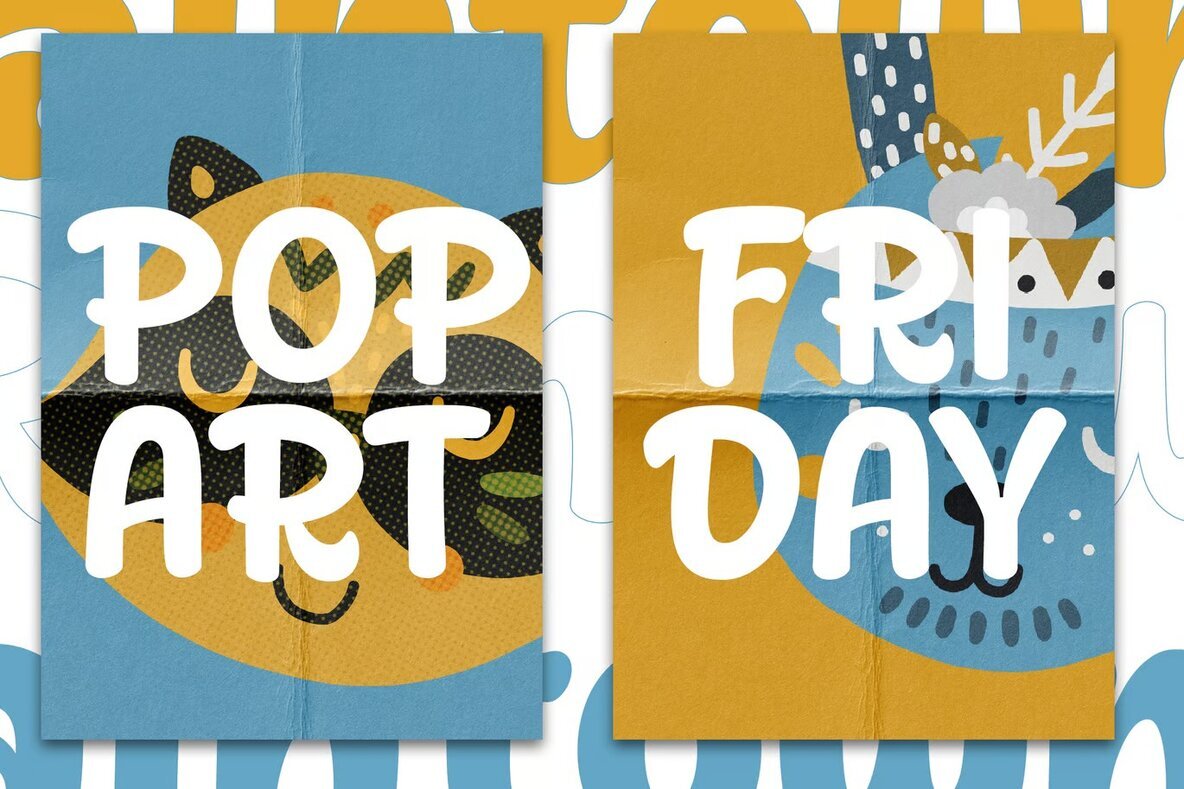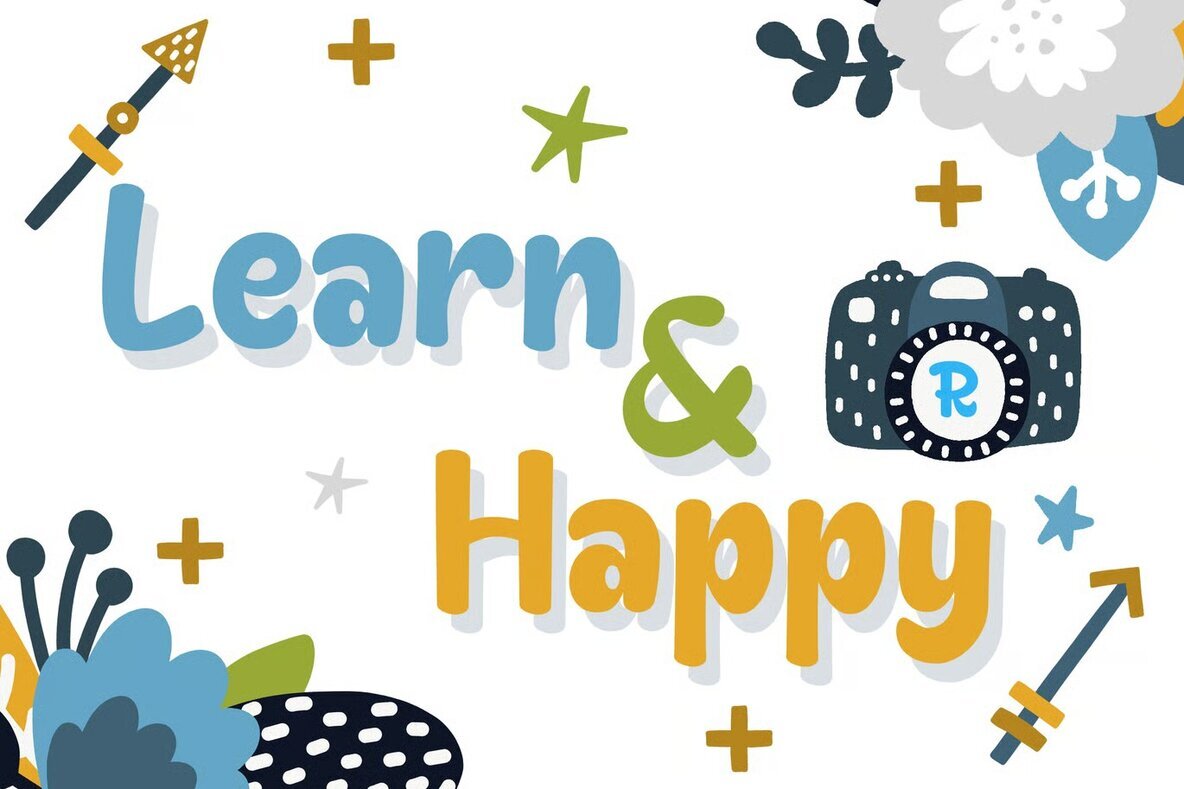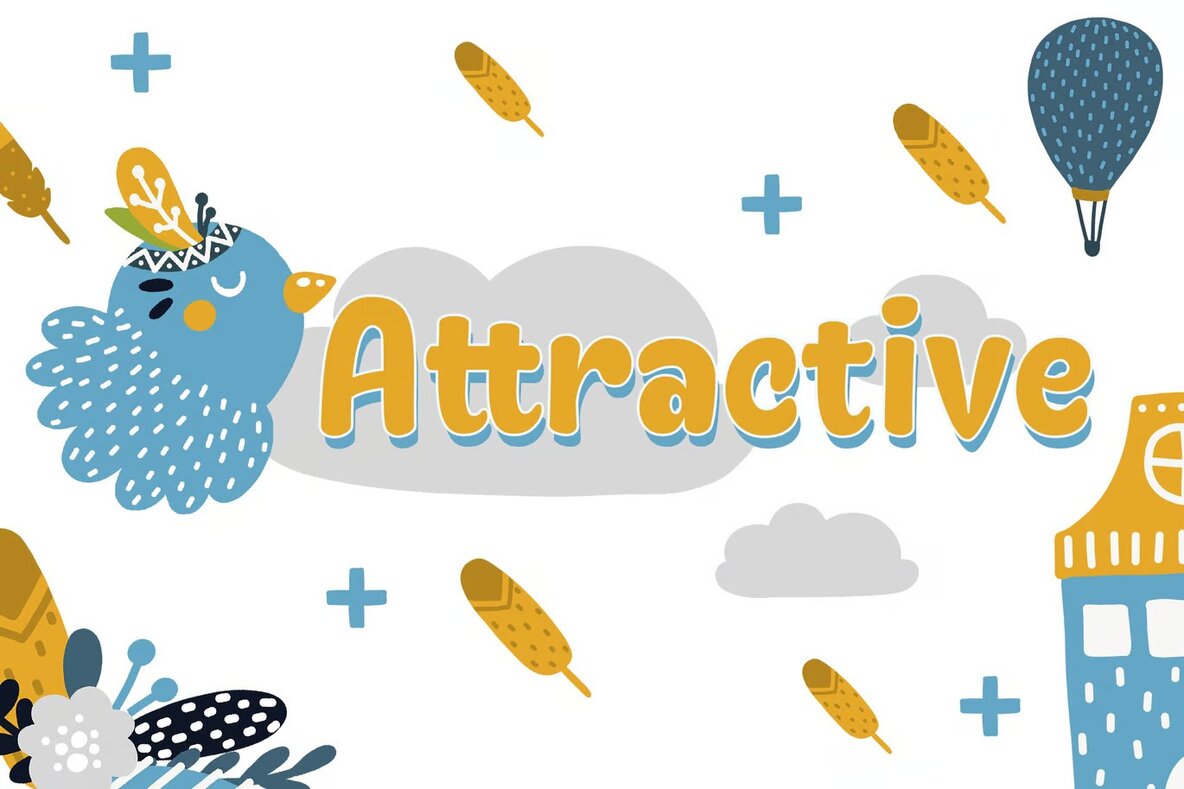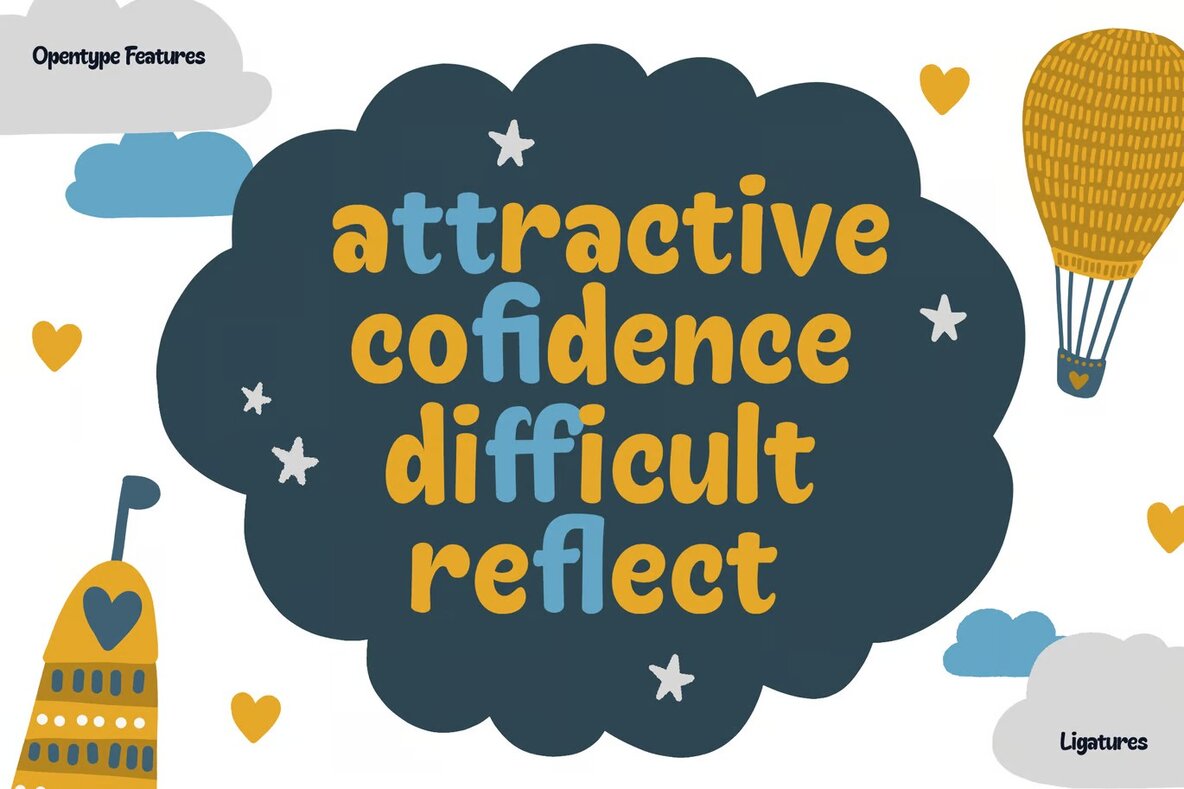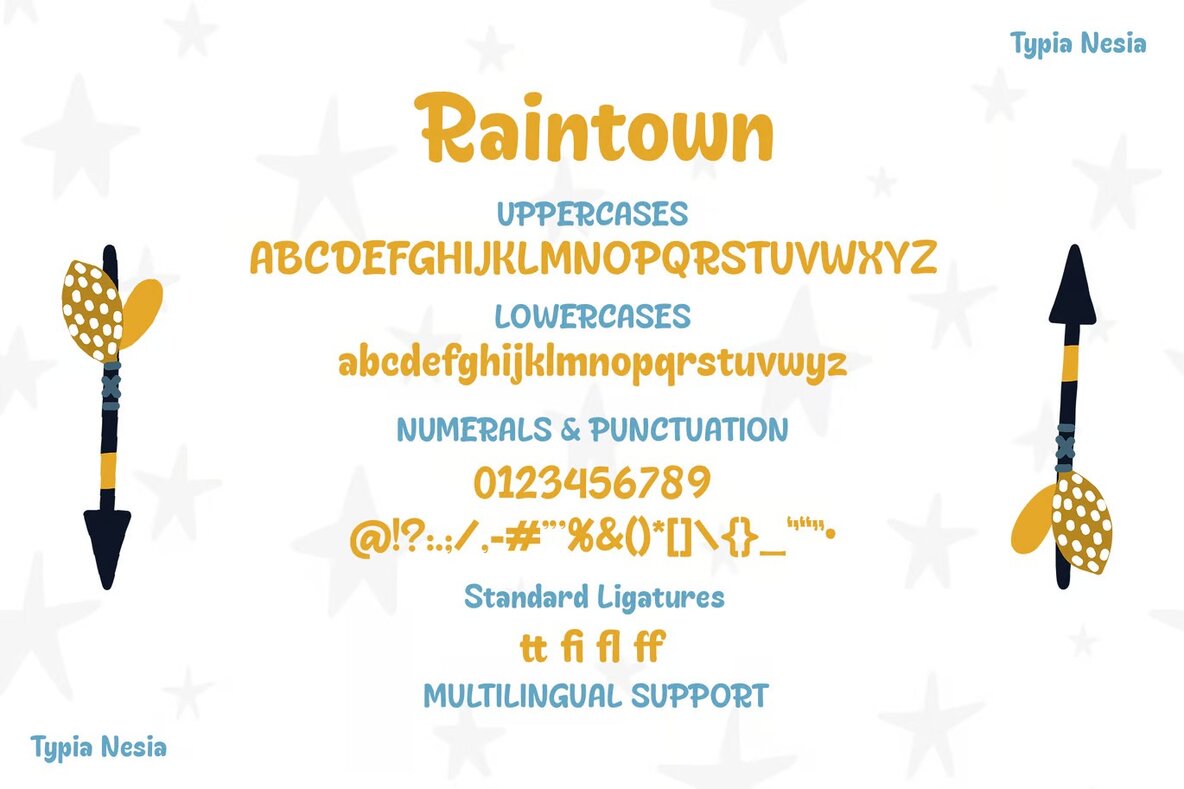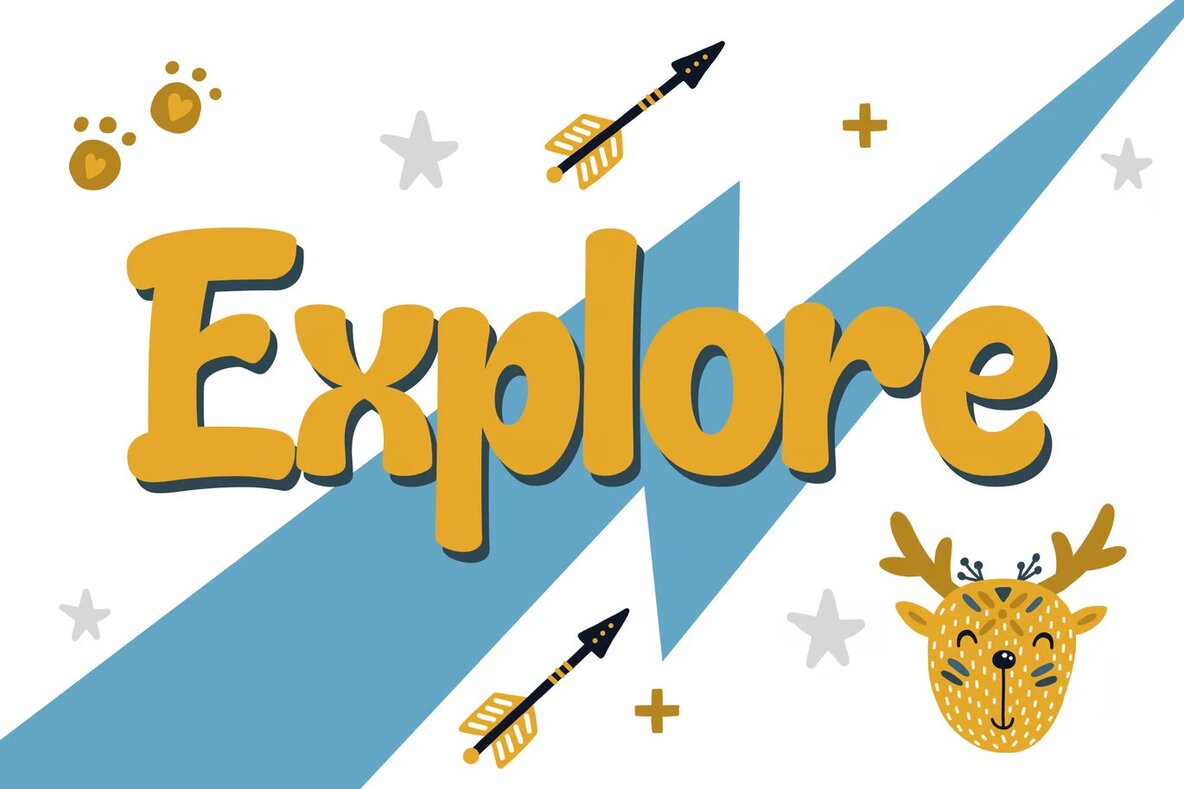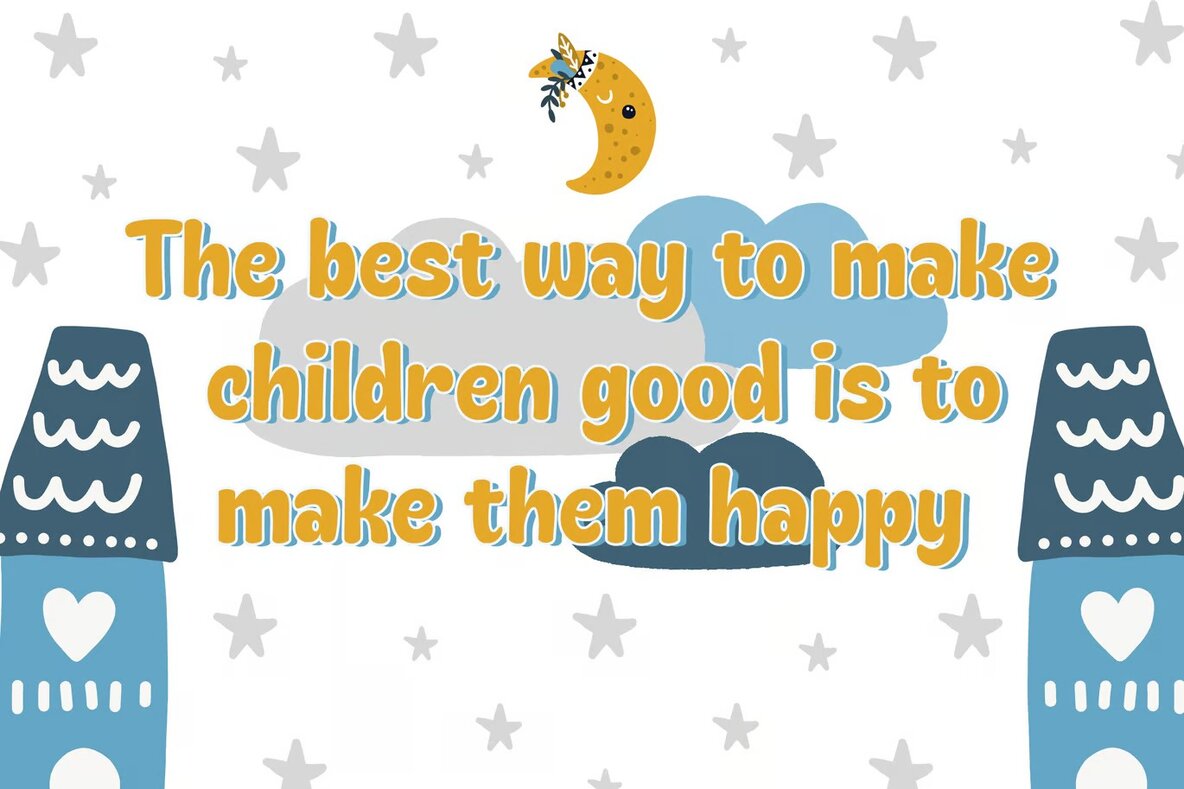
Raintown Font
Raintown is a chubby and cute sans-serif font designed for a playful and cartoon-like aesthetic. This font is perfect for a variety of design applications, including logos, branding, and modern advertising. Its whimsical style makes it particularly suited for projects related to cartoons, animations, and children's books.
Ideal for adding a fun and lively touch, Raintown can enhance poster quotes, book covers, and editorial designs. Additionally, it's great for personal projects like custom mugs, pillows, and t-shirts. With its versatile charm, Raintown is a go-to choice for any hand-lettered design needs you may have.